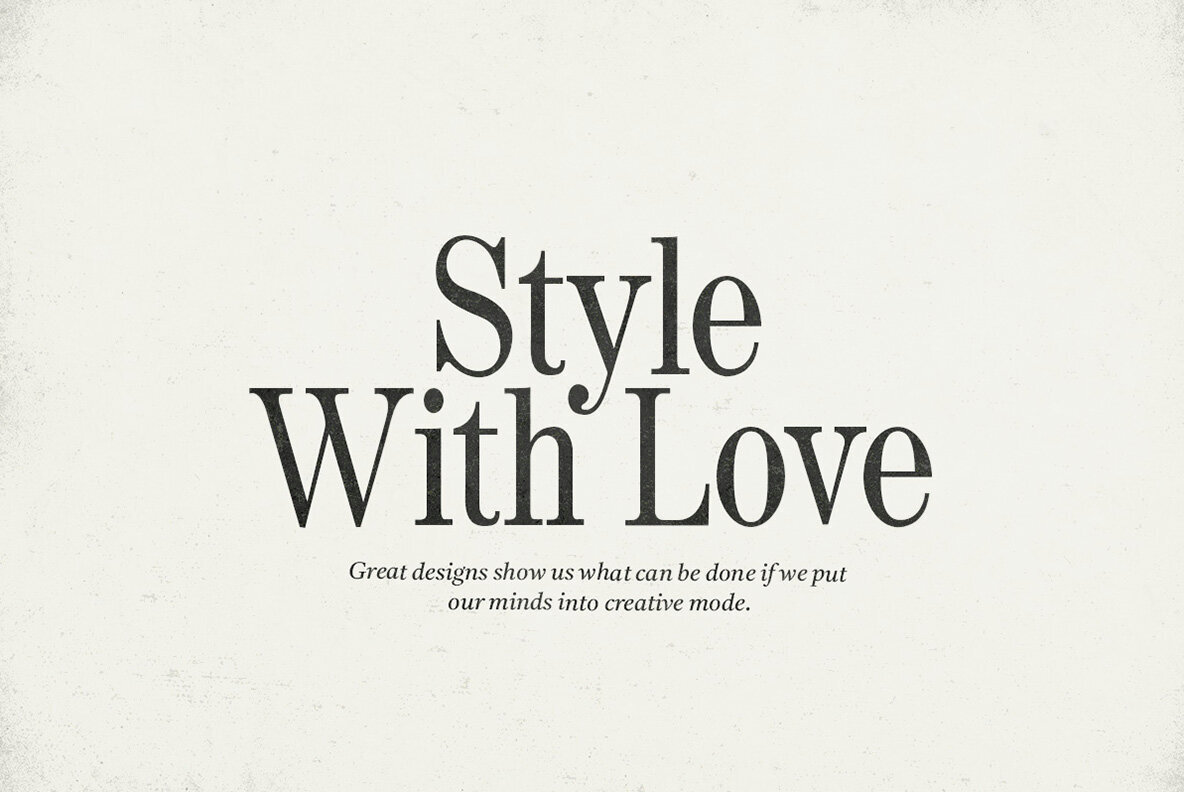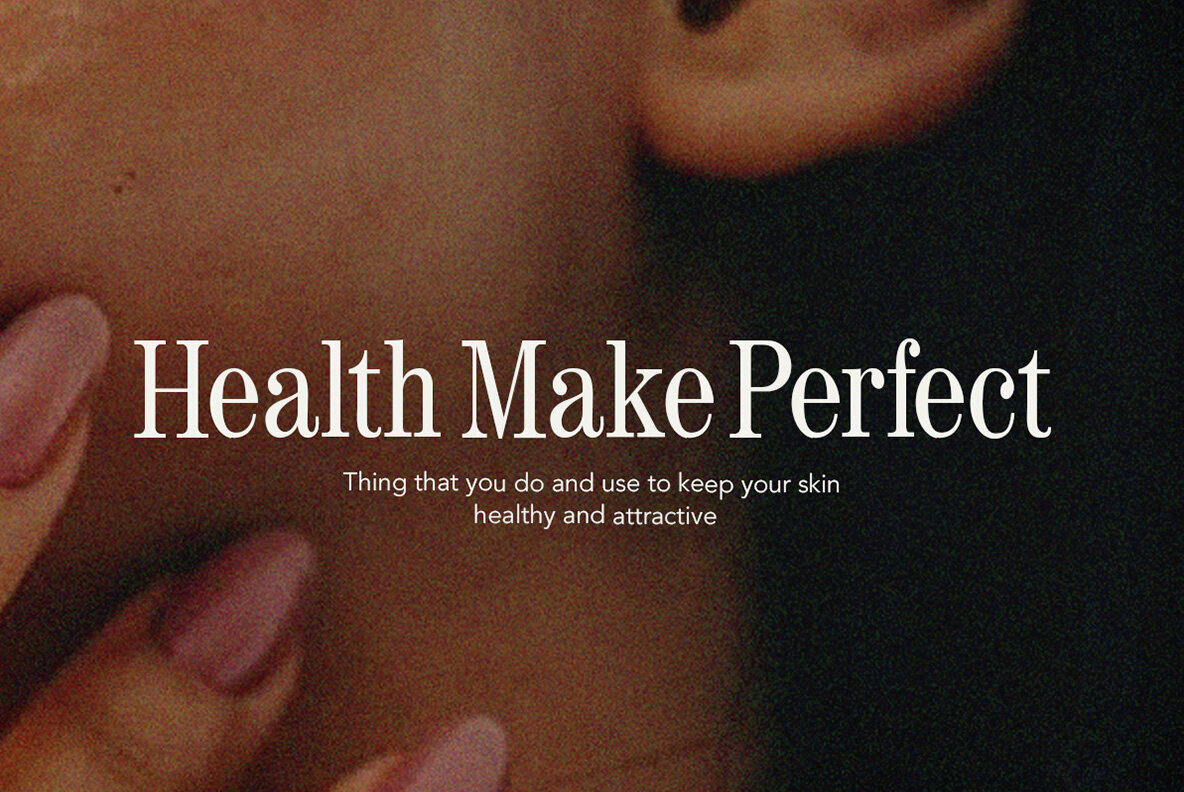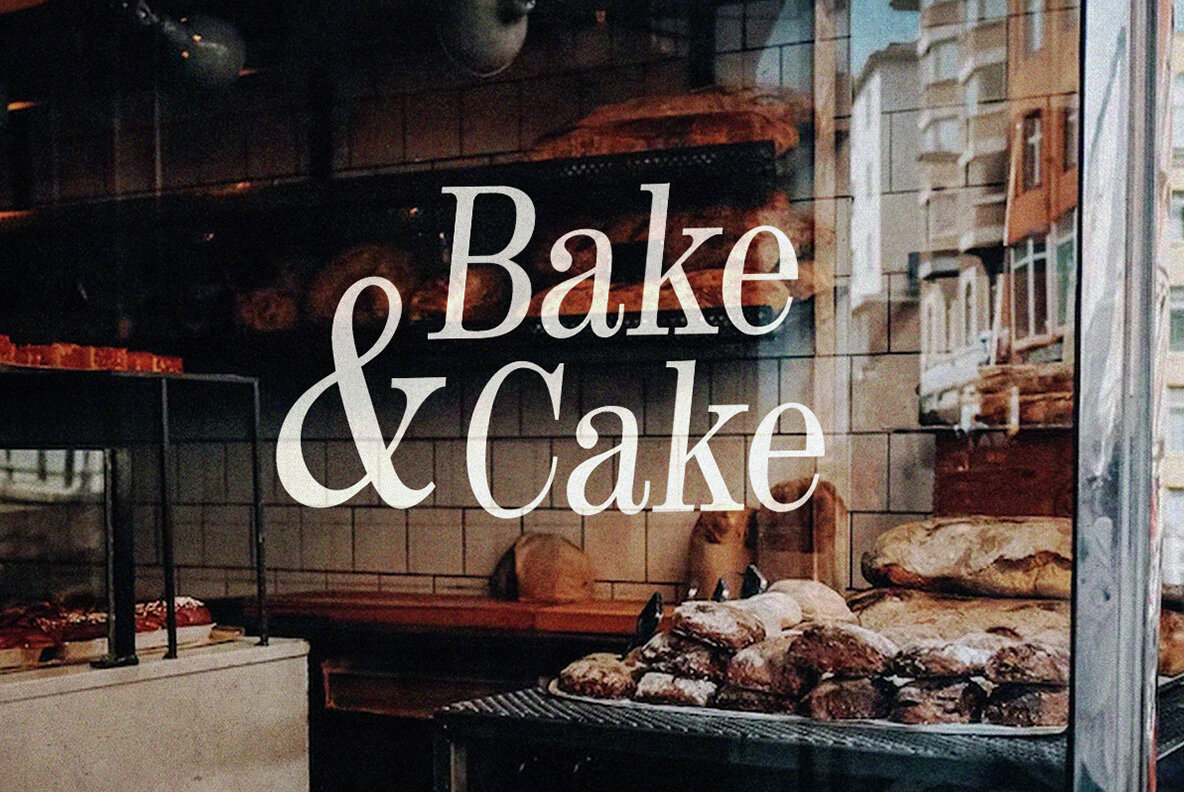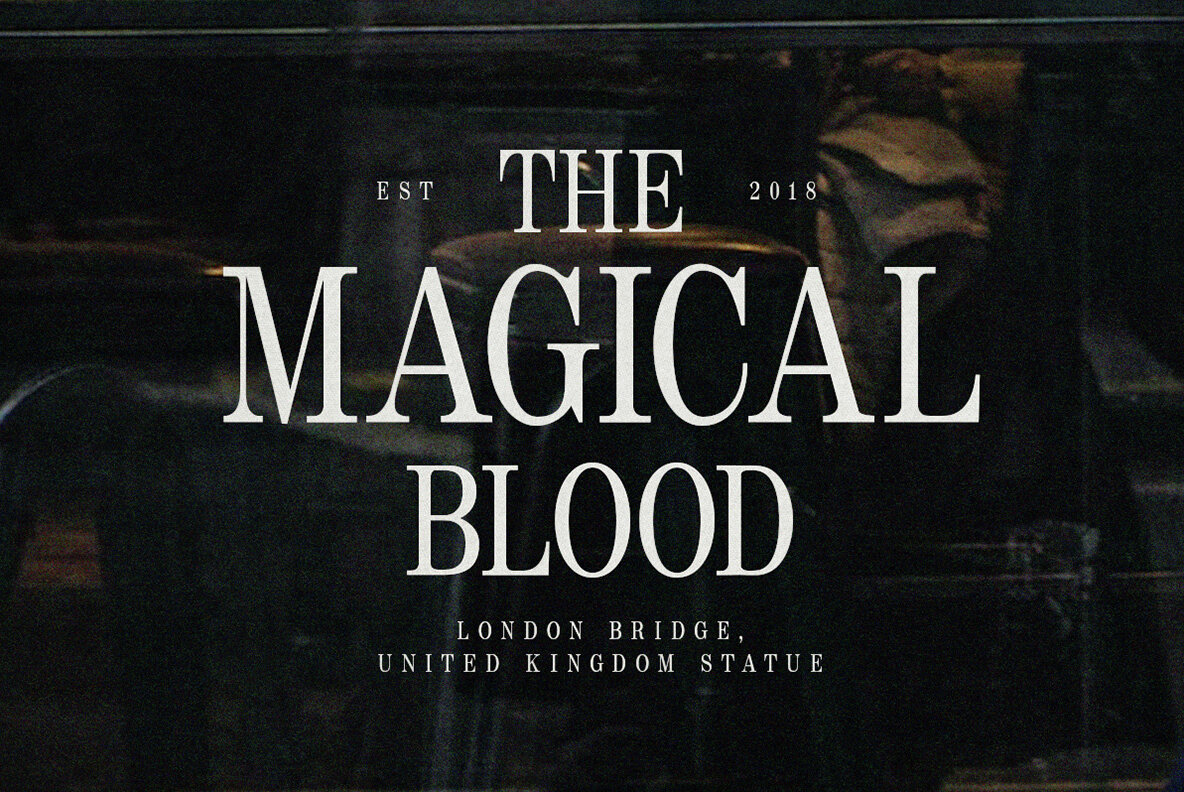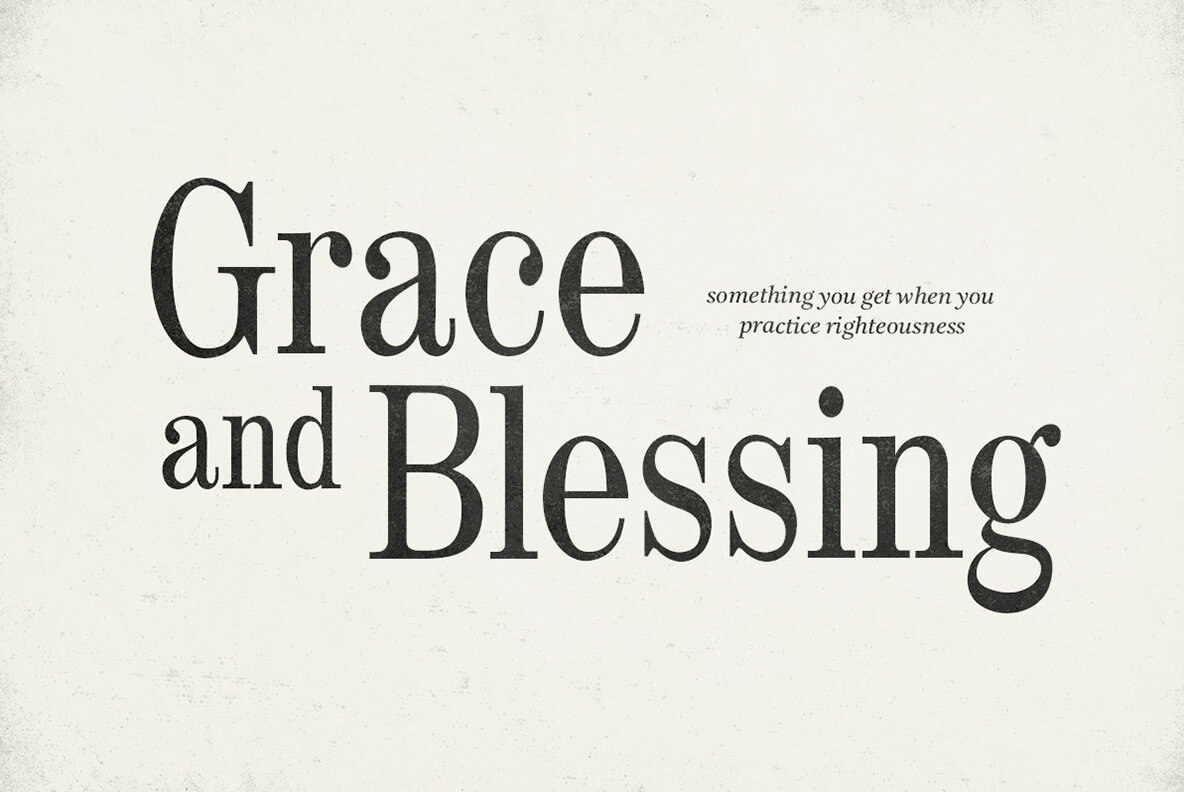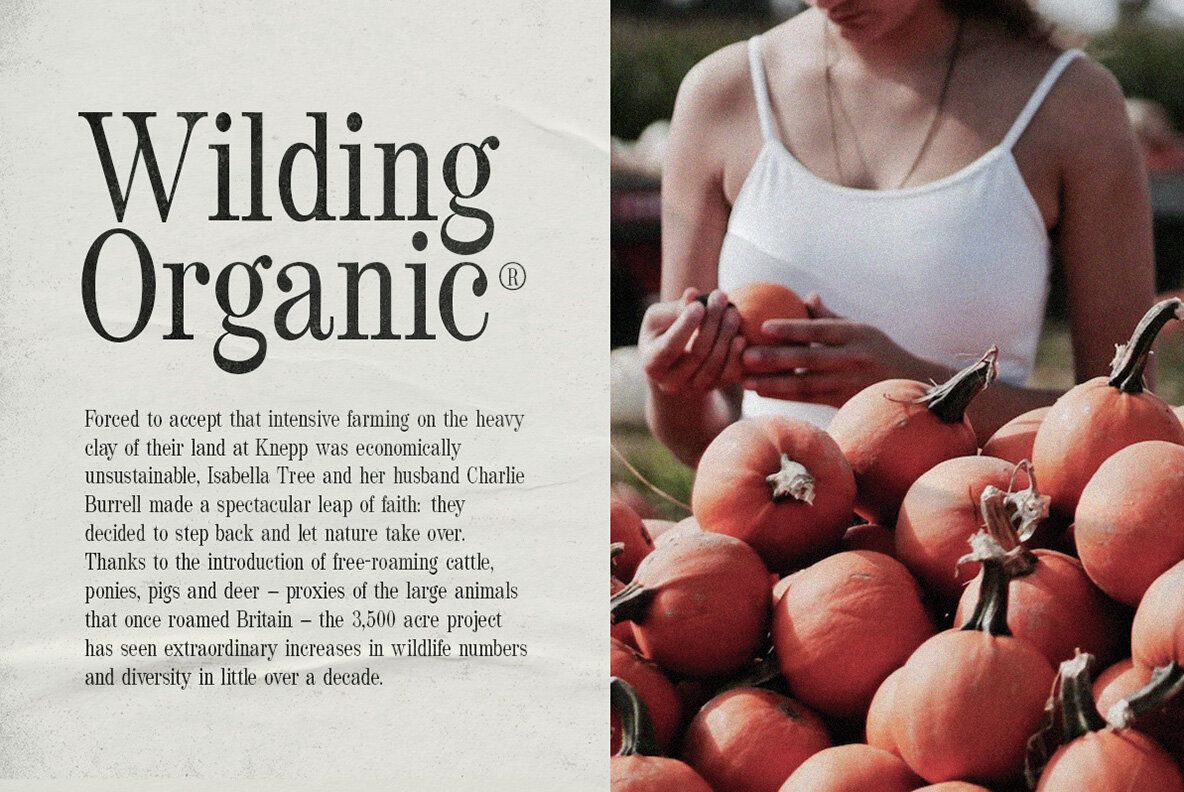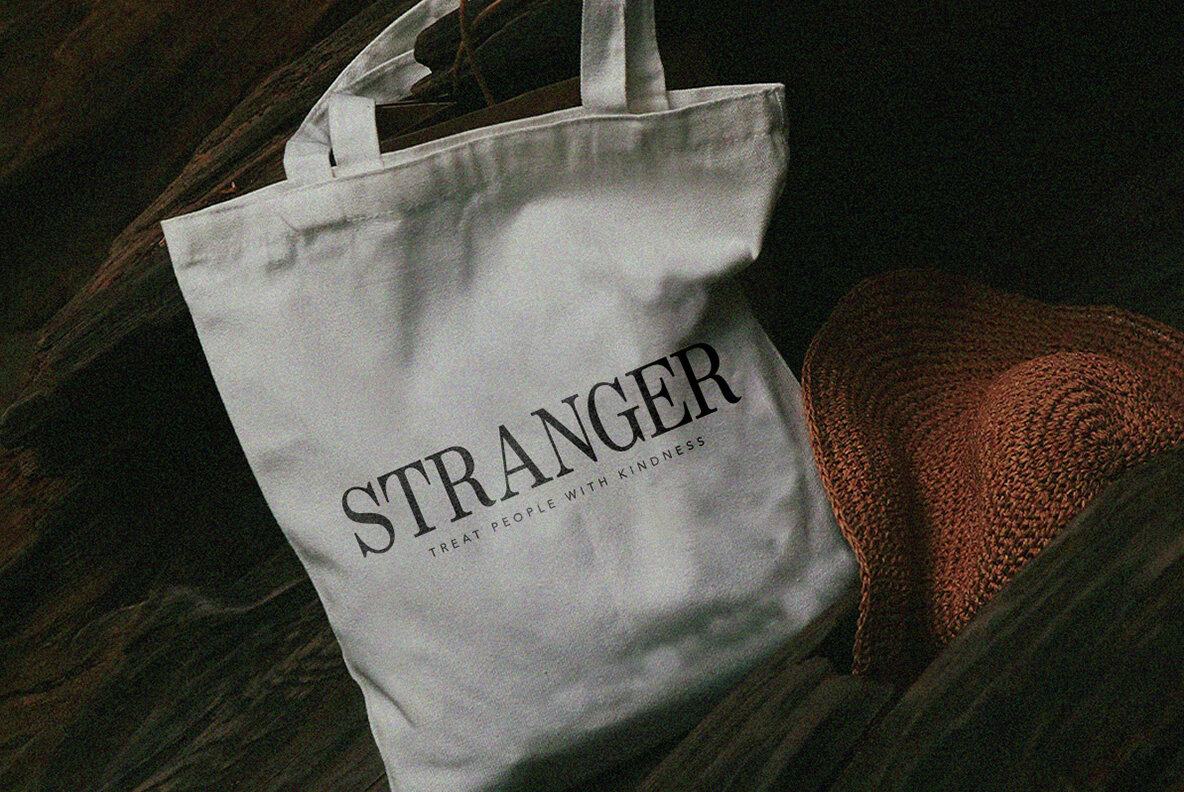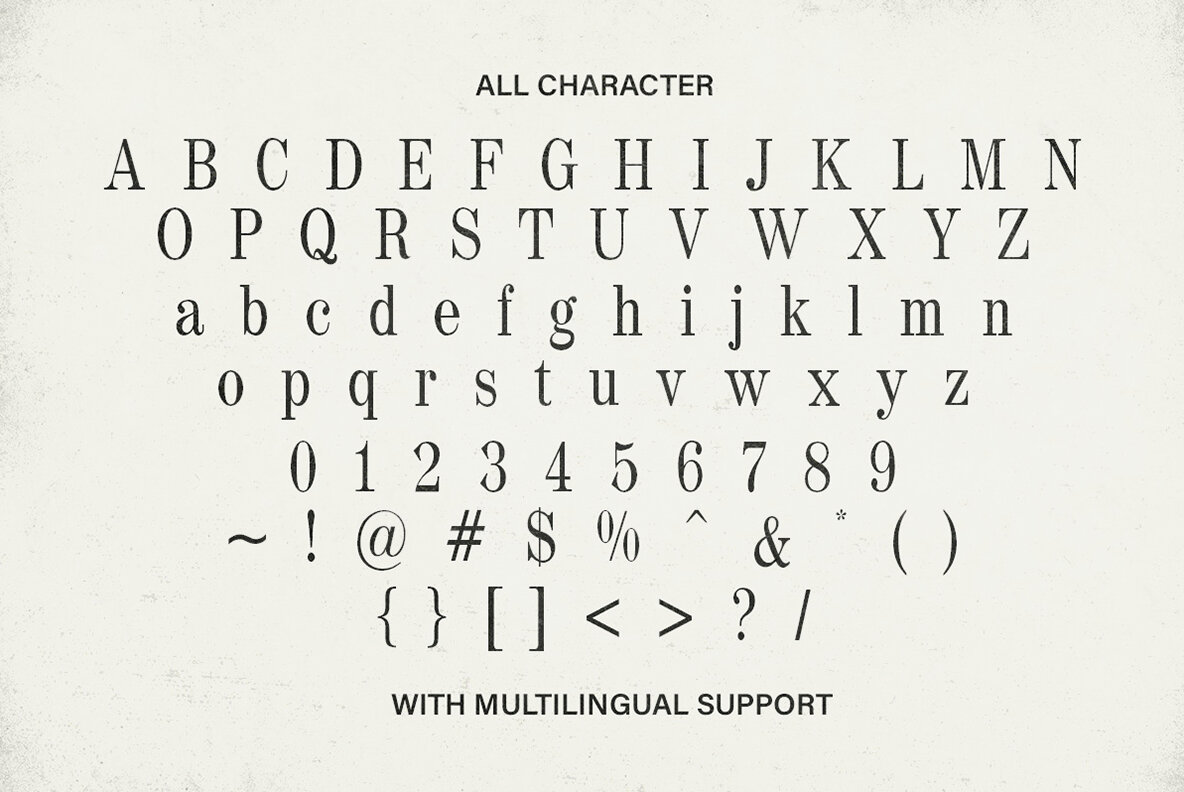
Wildest Font
Wildest Regular
Wildest: A Basic Serif Font for Diverse Applications
Wildest is a basic serif font known for its casual charm and classy features, making it an excellent choice for a wide range of projects.
- Multilingual Support – Enhance your designs with global reach.